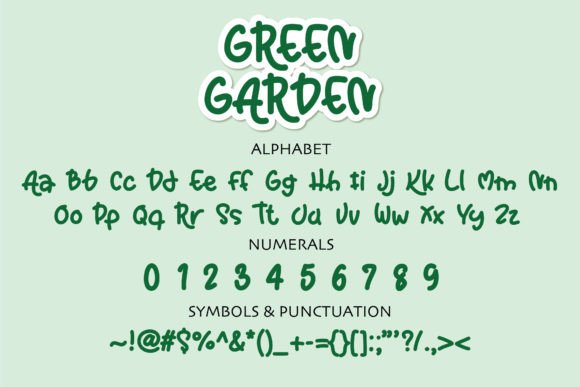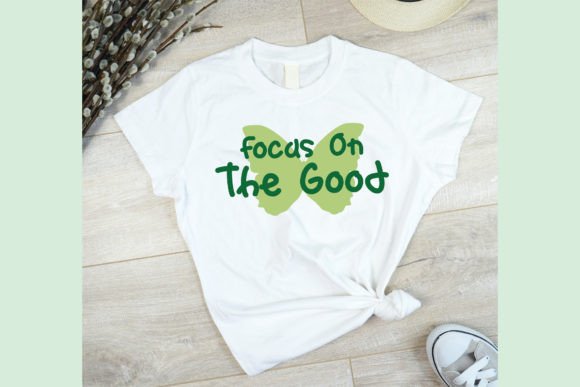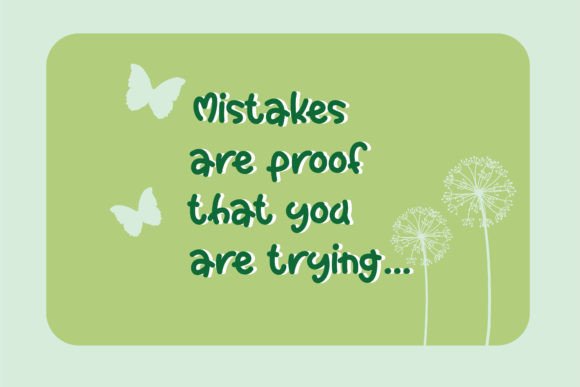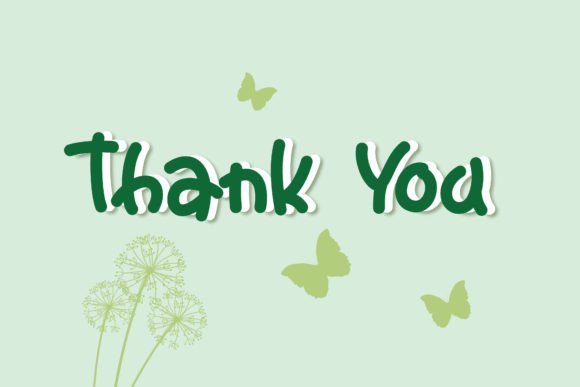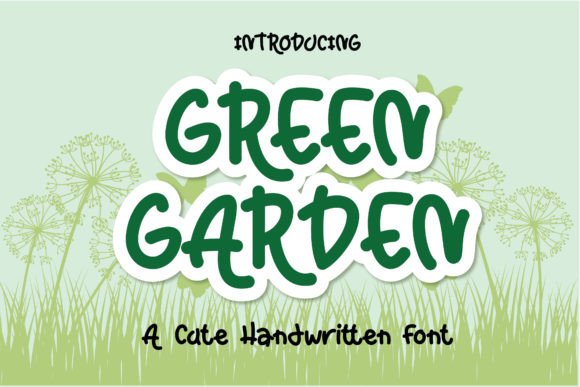
Introducing Green Garden Font: A Cute and Flexible Handwritten Delight
Are you a designer or crafter looking for a font that can add a touch of natural elegance to your projects? Look no further than Green Garden Font, a beautiful and versatile handwritten font that’s perfect for a wide range of designs. In this article, we’ll explore the features and benefits of Green Garden Font, and show you how to make the most of this gorgeous font.
What is Green Garden Font?
Green Garden Font is a cute and flexible handwritten font that’s designed to bring a touch of whimsy and charm to your designs. With its natural and unique style, this font is incredibly fitting for a large pool of designs, from rustic and vintage-inspired projects to modern and sleek designs.
One of the standout features of Green Garden Font is its flexibility. This font can be used for a wide range of projects, including:
- Wedding and event invitations
- Stationery and journaling
- Digital and print advertising
Key Features of Green Garden Font
So what makes Green Garden Font so special? Here are just a few of its key features:
- Handwritten style: Green Garden Font has a beautiful, handwritten style that’s perfect for adding a personal touch to your designs.
- Natural and unique: This font has a natural and unique style that’s sure to stand out from the crowd.
- Flexible and versatile: Green Garden Font can be used for a wide range of projects and designs.
- Cute and charming: This font has a cute and charming personality that’s perfect for designs that need a touch of whimsy.
How to Use Green Garden Font
- Pair it with other fonts: Green Garden Font pairs beautifully with other fonts, so don’t be afraid to experiment with different combinations.
- Experiment with colors: This font looks great in a range of colors, from bright and bold to soft and pastel.
- Add embellishments: Consider adding embellishments, such as flowers or leaves, to give your designs an extra touch of whimsy.
- Play with sizes: Green Garden Font looks great in a range of sizes, from large and bold to small and delicate.
Benefits of Using Green Garden Font
- Adds a personal touch: Green Garden Font has a personal and handwritten style that’s perfect for adding a touch of personality to your designs.
- Versatile and flexible: This font can be used for a wide range of projects and designs, making it a great addition to your font library.
- Unique and eye-catching: Green Garden Font has a unique and eye-catching style that’s sure to stand out from the crowd.
- Easy to use: This font is easy to use and pairs well with a range of other fonts and design elements.
Green Garden Font is a beautiful and versatile handwritten font that’s perfect for designers and crafters looking to add a touch of natural elegance to their projects. With its unique and eye-catching style, this font is sure to stand out from the crowd and add a personal touch to your designs. So why not give Green Garden Font a try and see the endless variations you can create?